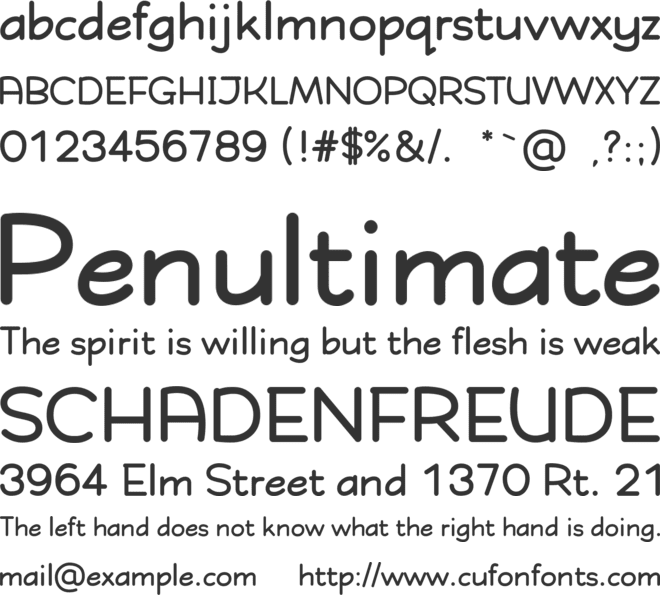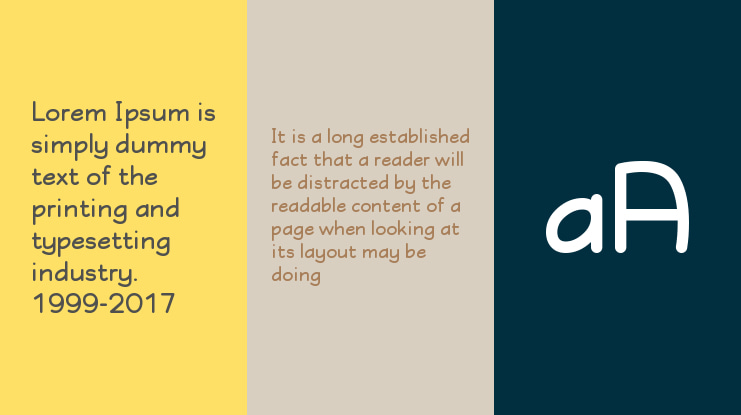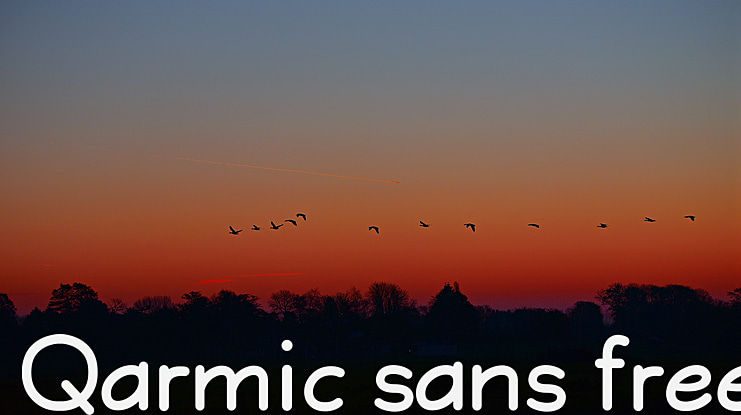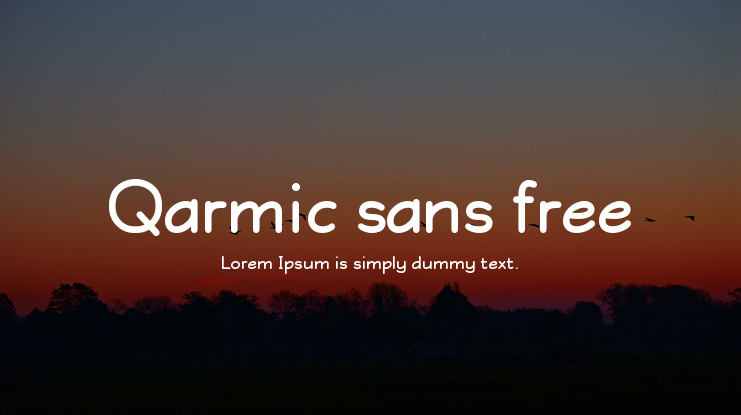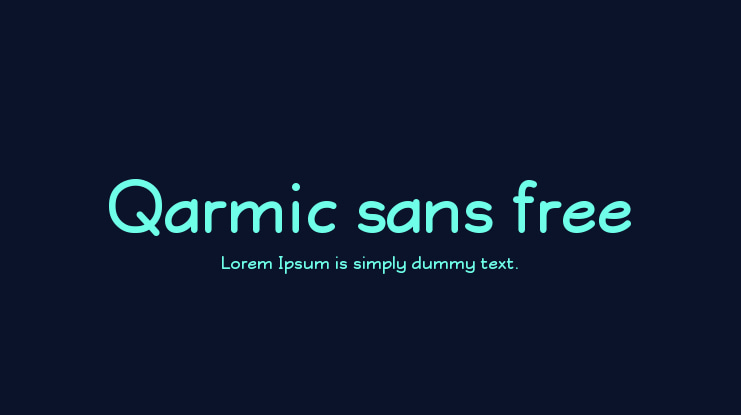
Qarmic sans free Font
Originally chosen as a default font for the first iphone, this is the basic Qarmic sans. It has an extended version (see my website details) with foreign accents, composites and lots of interesting symbols and arrows.